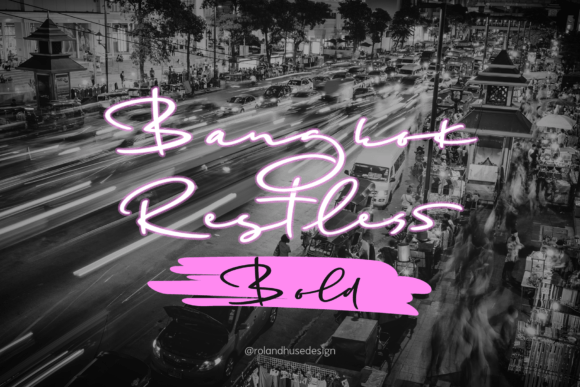
Unleash your inner artist with Bangkok Restless Bold, an enthralling script font that dances across the digital canvas with playful elegance. Crafted by the visionary Roland Hüse Design, this font is a masterpiece of artistry, perfectly capturing the essence of handwritten beauty.
Immerse yourself in the world of Bangkok Restless Bold and let your creativity soar. This captivating font is ideal for photography signatures, adding a touch of personal flair to your images. Its bold strokes and dynamic curves bring a sense of movement and energy, making your words jump off the screen.
With Bangkok Restless Bold, you'll have the power to transform your designs into captivating works of art. Its unique letterforms and distinctive style add an instant touch of sophistication and charm to any project. Whether you're creating logos, branding materials, invitations, or social media posts, this font will elevate your designs to new heights.
Step into the realm of Bangkok Restless Bold and unlock the endless possibilities of creative expression. This remarkable font is more than just a collection of letters; it's a gateway to a world of visual storytelling. Embrace its bold presence and let your designs speak volumes.